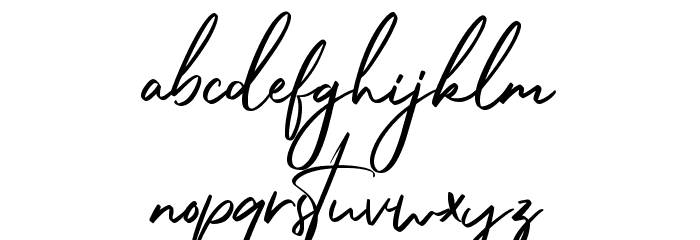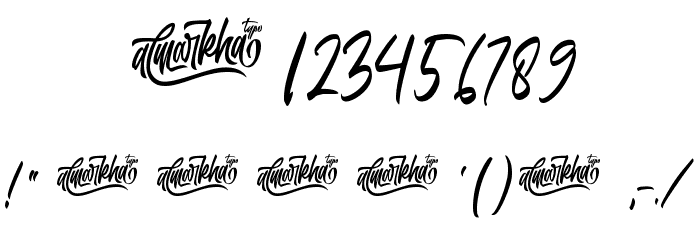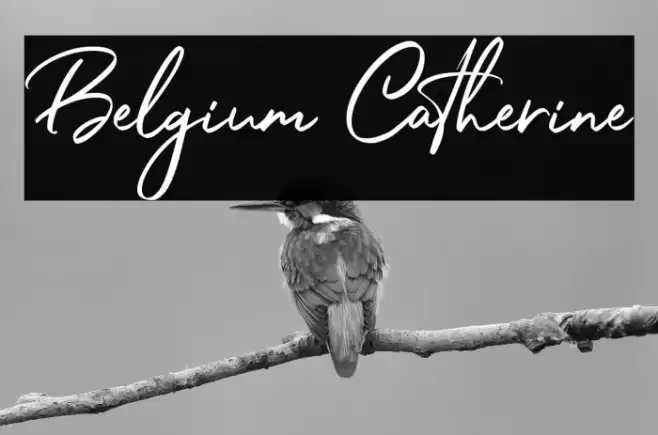
Belgium Catherine Font
This font exhibits a dynamic and expressive style, characterized by its flowing, cursive script. The letters are elegantly connected, creating a sense of movement and fluidity. The uppercase letters are bold and sweeping, while the lowercase letters maintain a consistent rhythm with graceful loops and curves. The numerals are similarly styled, maintaining the overall aesthetic of the script. Special characters are integrated seamlessly, enhancing the font's versatility. This font is ideal for projects that require a personal, handwritten touch, such as invitations, branding, and artistic designs.
A dynamic, cursive script font with elegant, flowing connections.
- Proposed Projects: Ideal for invitations, branding, artistic designs, and personal projects.
- Use Case: Logos, Headlines, Artistic designs